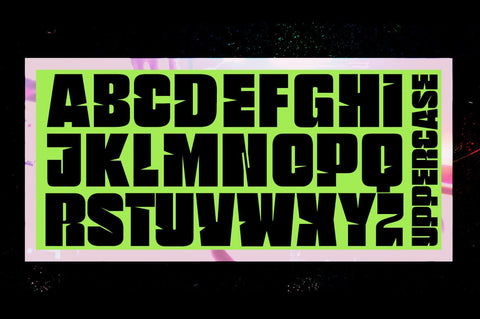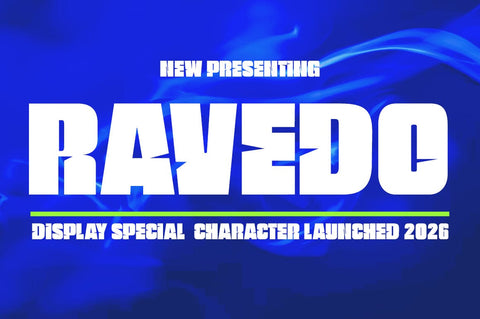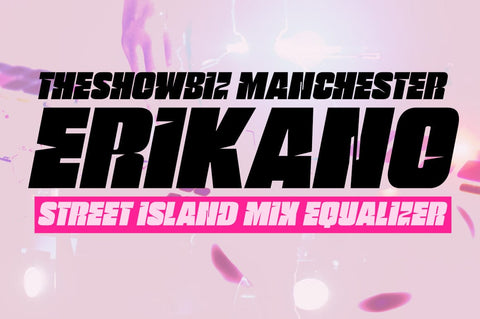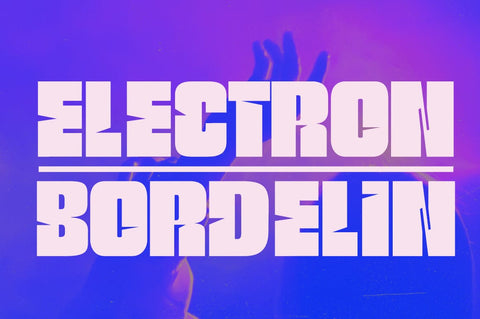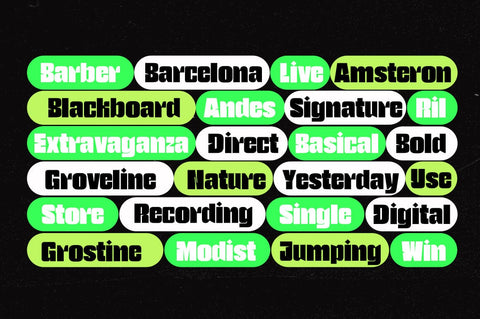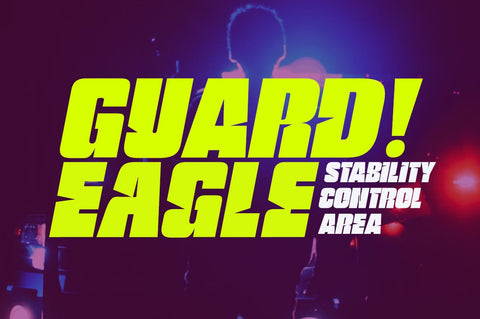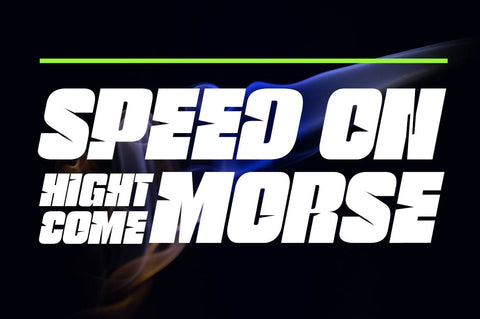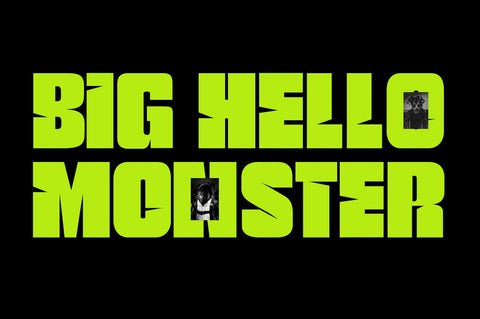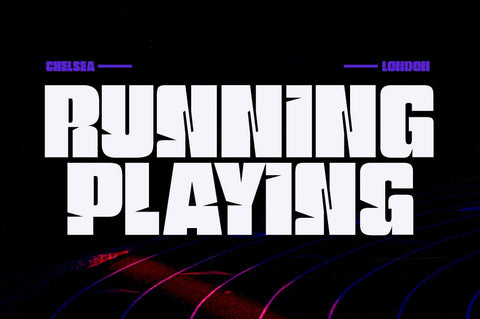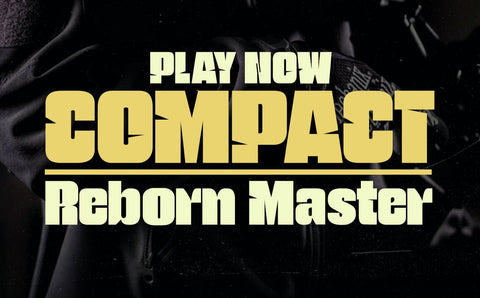
Ravedo
We're back with the Ravedo font, a captivating sporty style perfect for sports and posters. Its contemporary style will appeal to you when creating classy designs while maintaining a stable and classy look.
You'll find inspiration with two alternative regular and italic styles: Ligature and Swash Glyph, to combine with your incredible creativity!